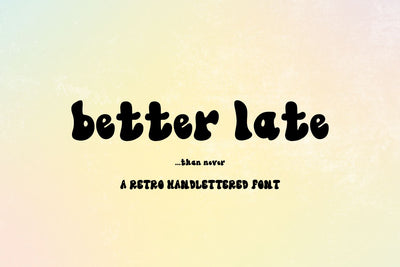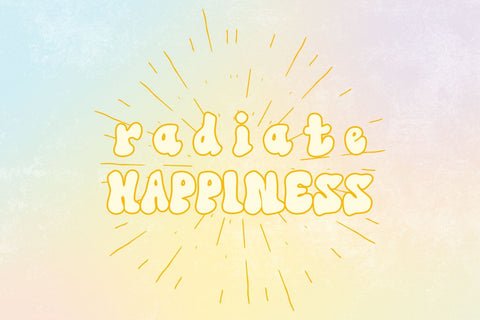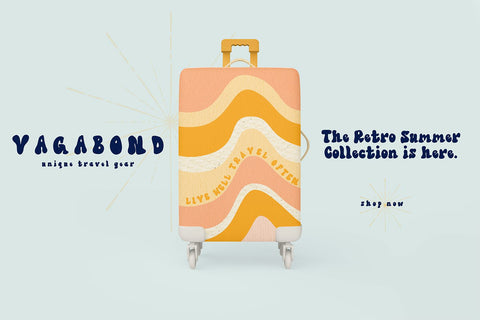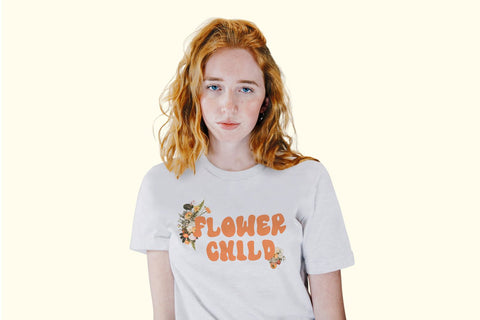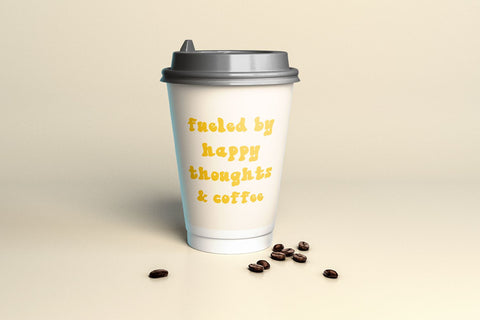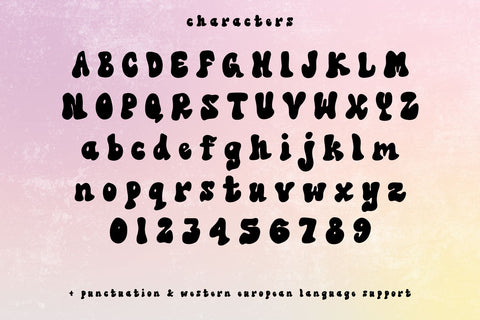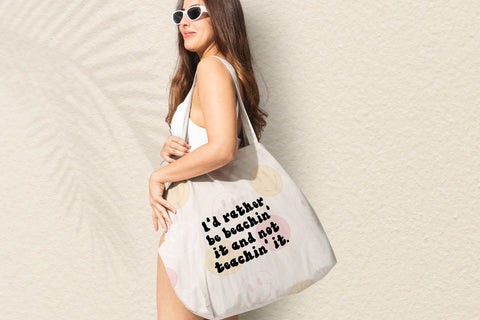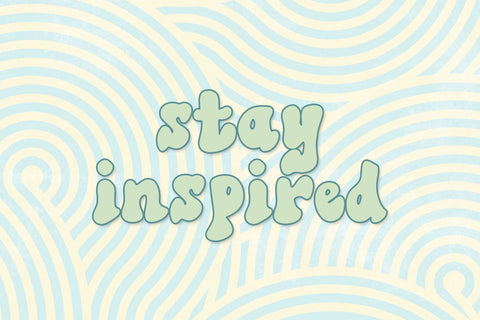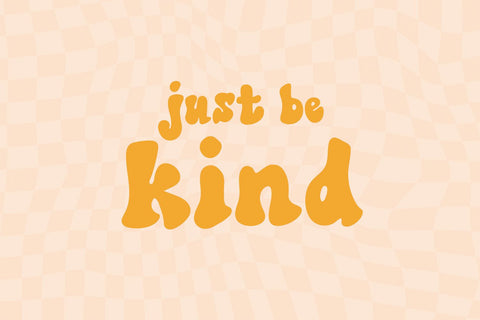
Better Late Retro Font
Introducing Better Late, a retro handlettered font. Better Late radiates happiness and has a lovely bubbly quality.
Better Late is best for:
- fun retro crafty projects with your Cricut or Silhouette machine, or your SVG design business
- decor and crafts
- logos + branding
- website design + website accents, blog design
- quote graphics for social media
- feminine graphic tee shirt design & other apparel, like tote bags or coffee mugs
Better Late includes:
- full uppercase and lowercase characters
- numbers + punctuation
- Western European Language Support